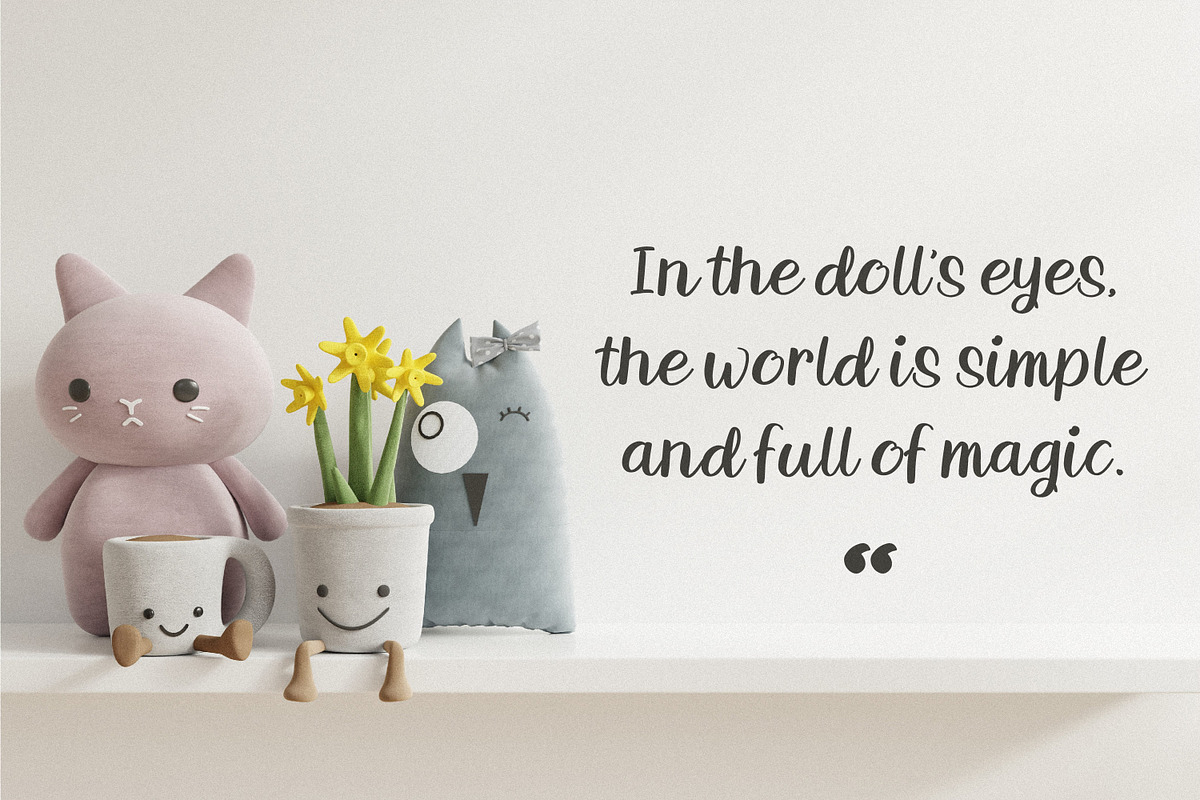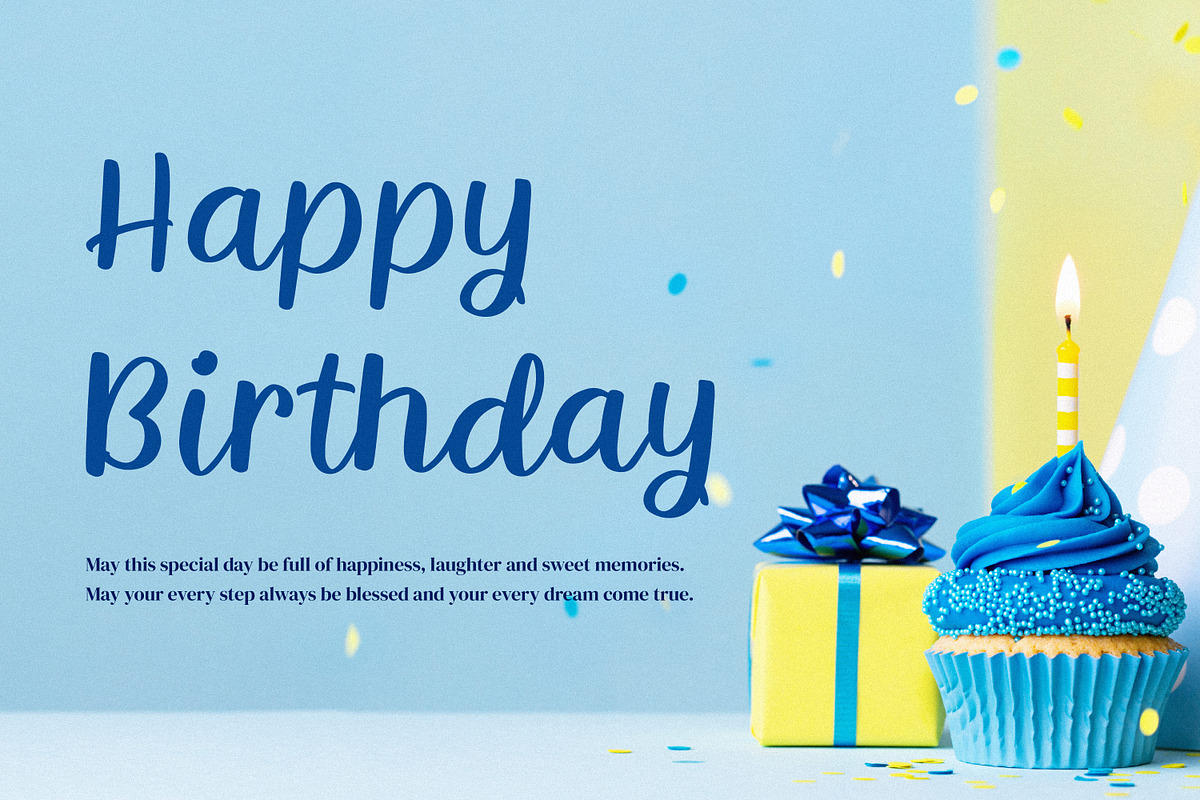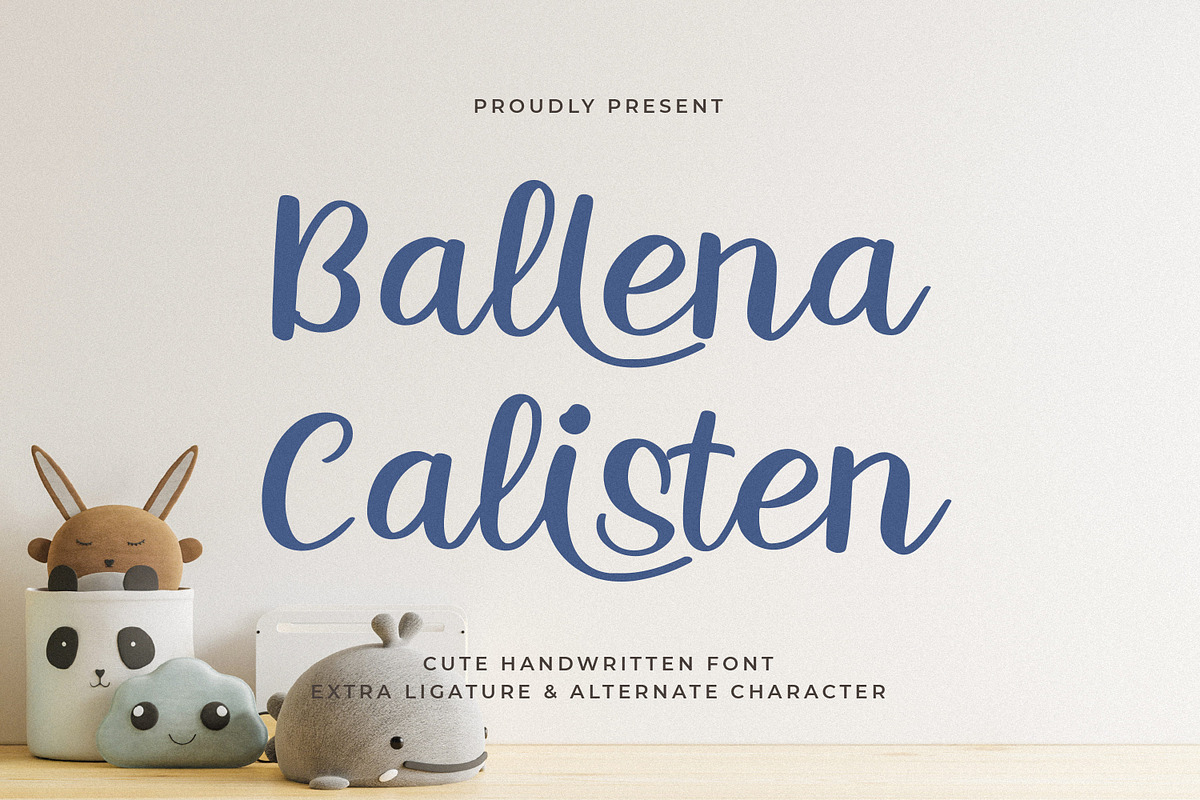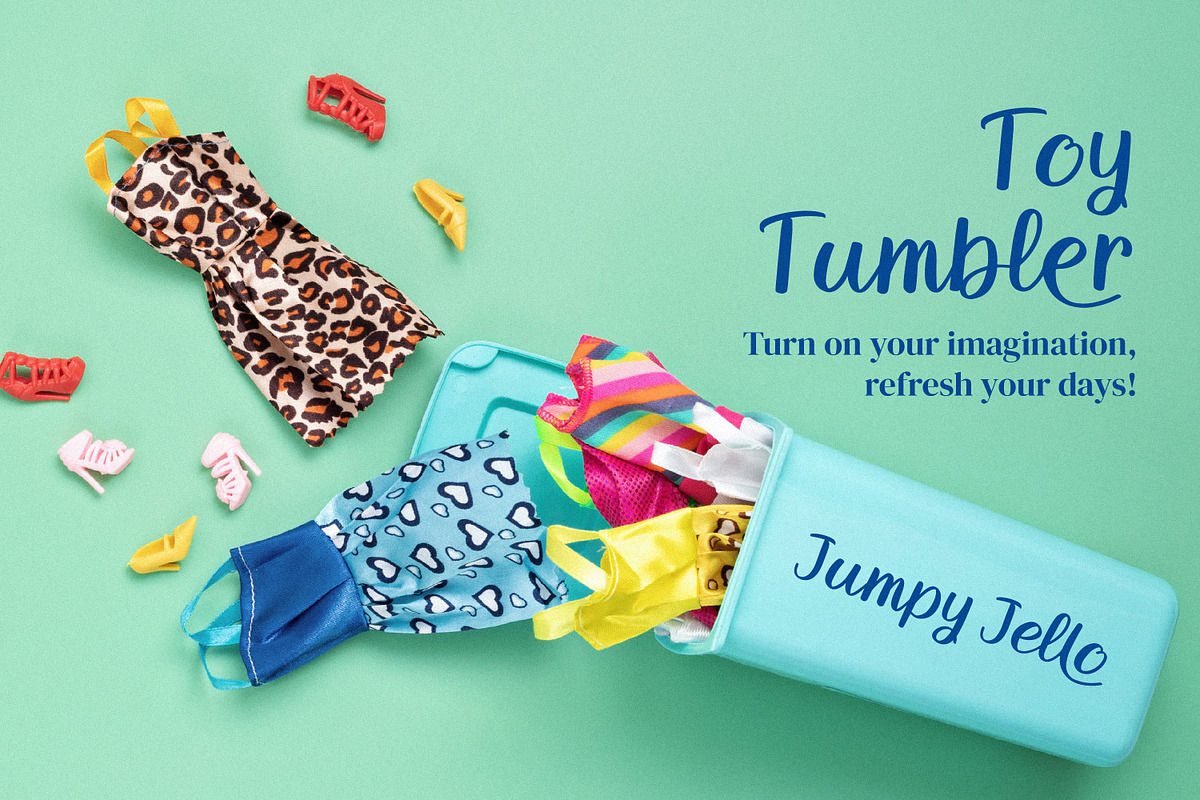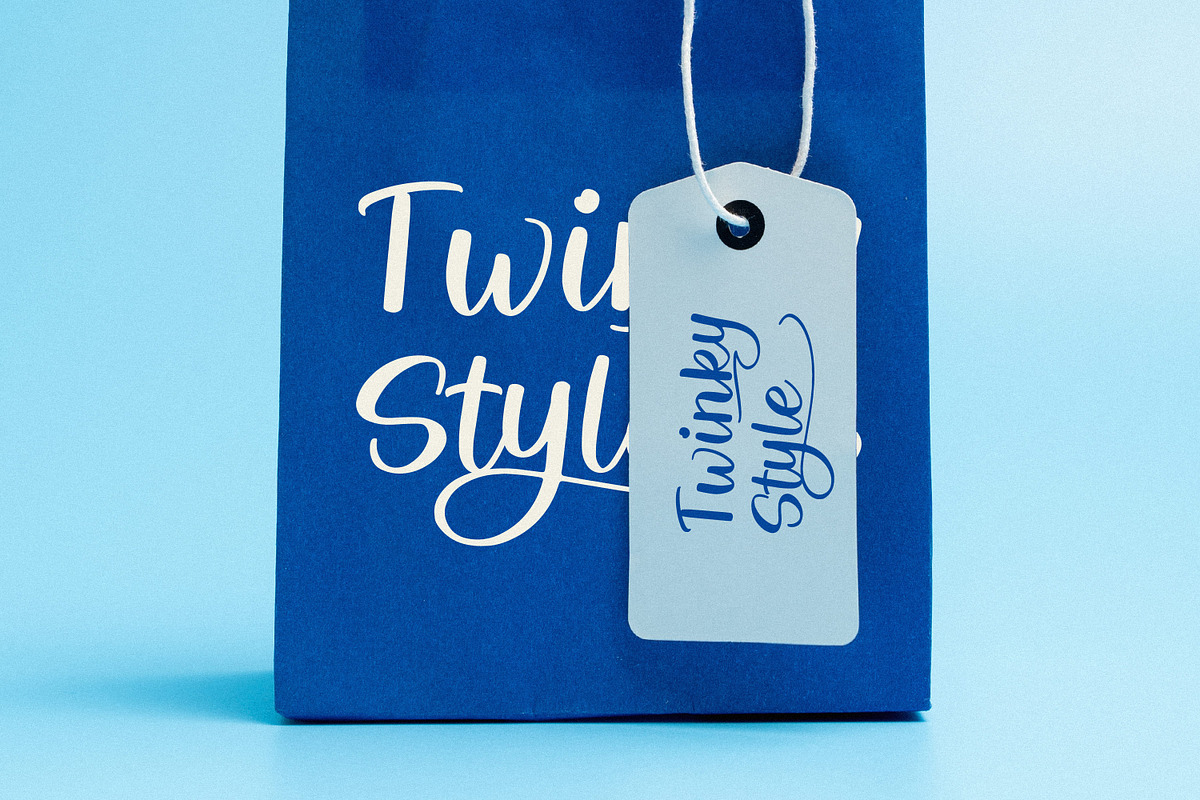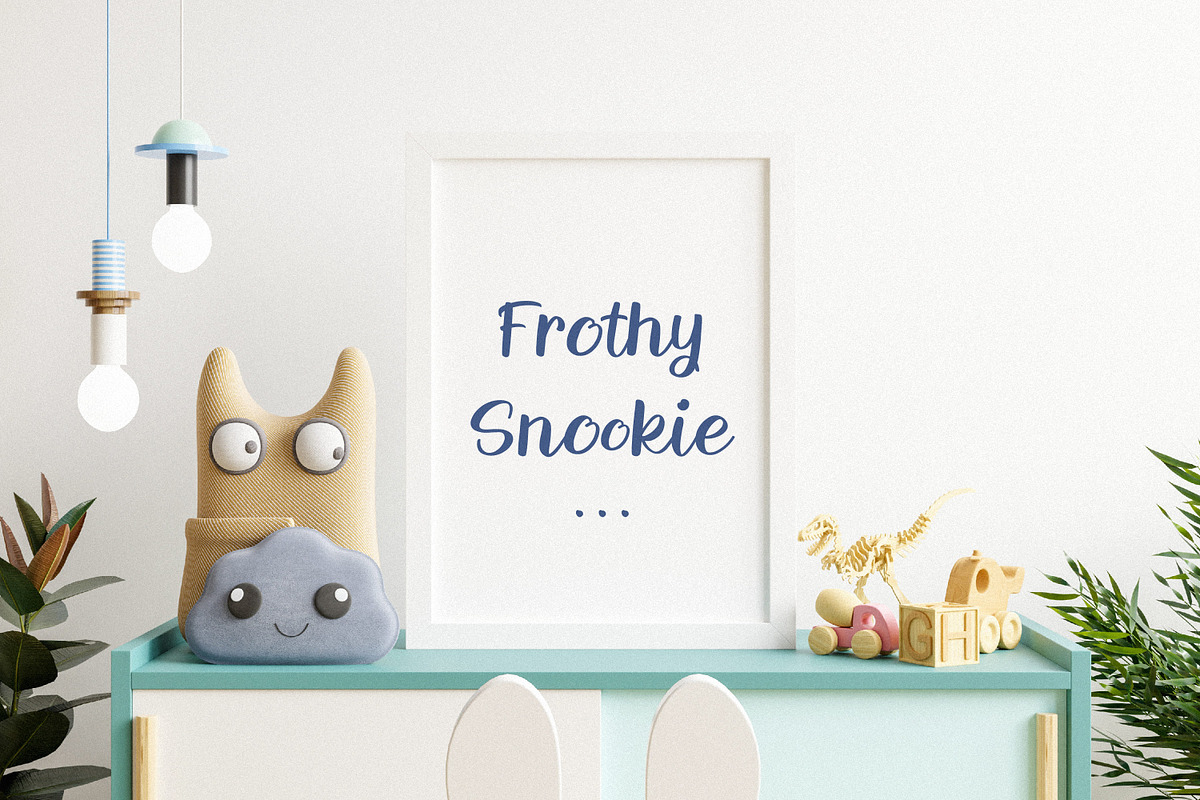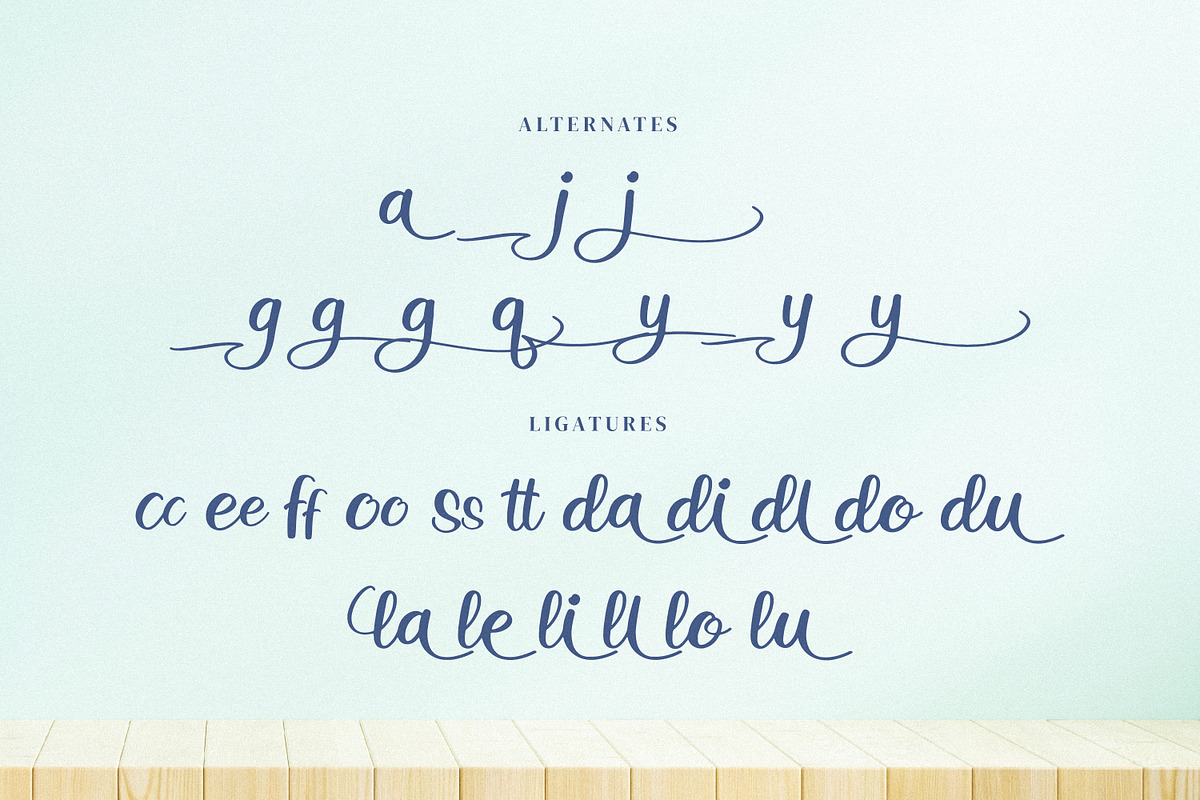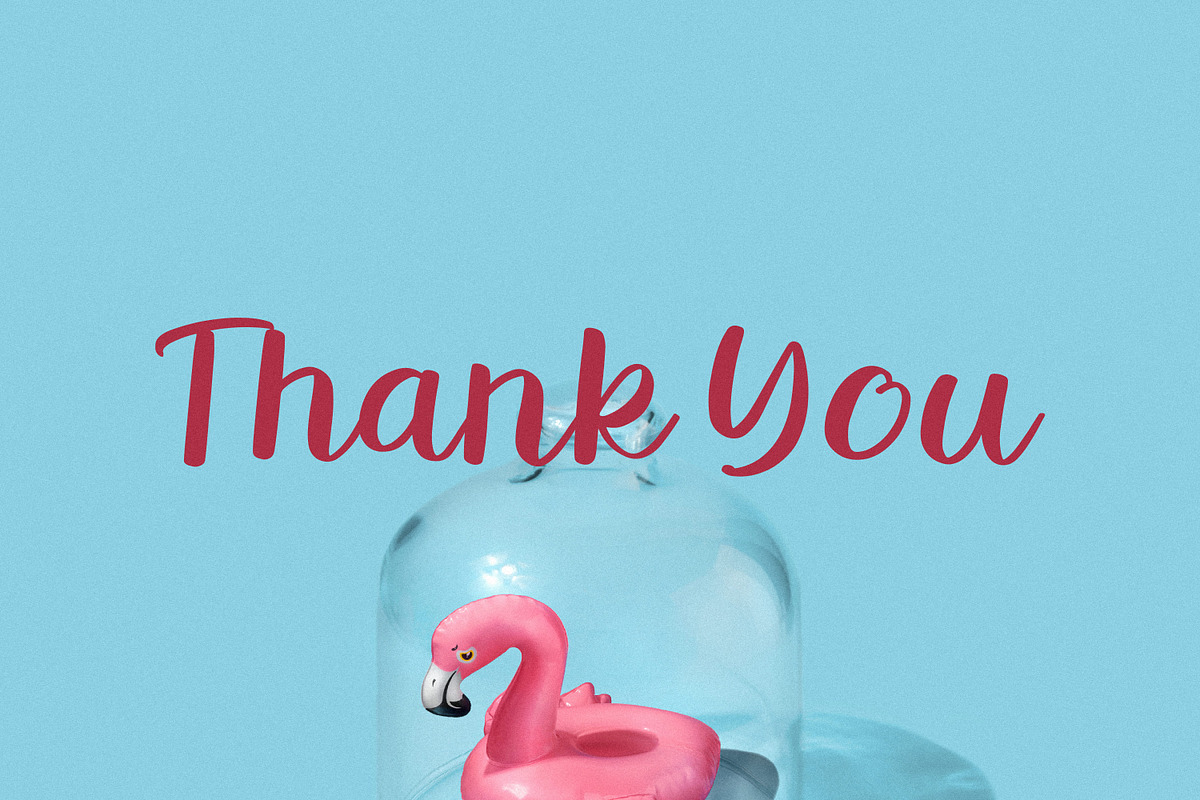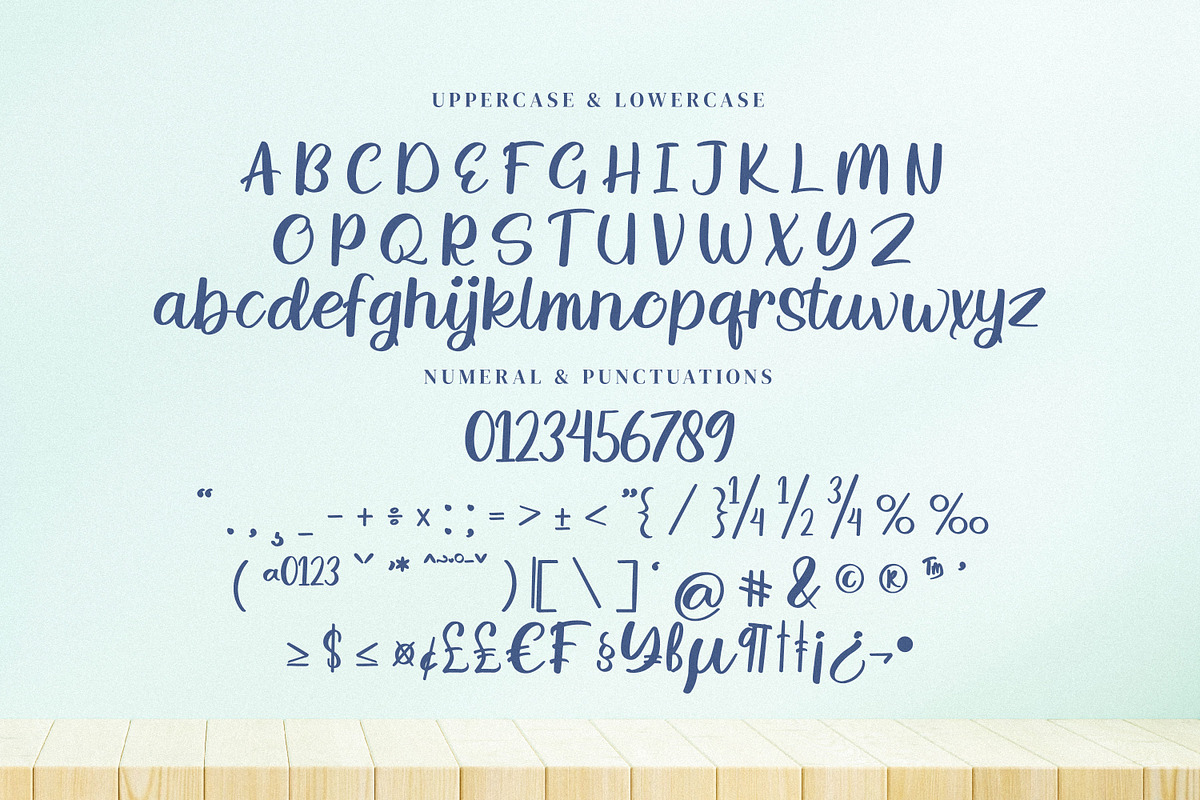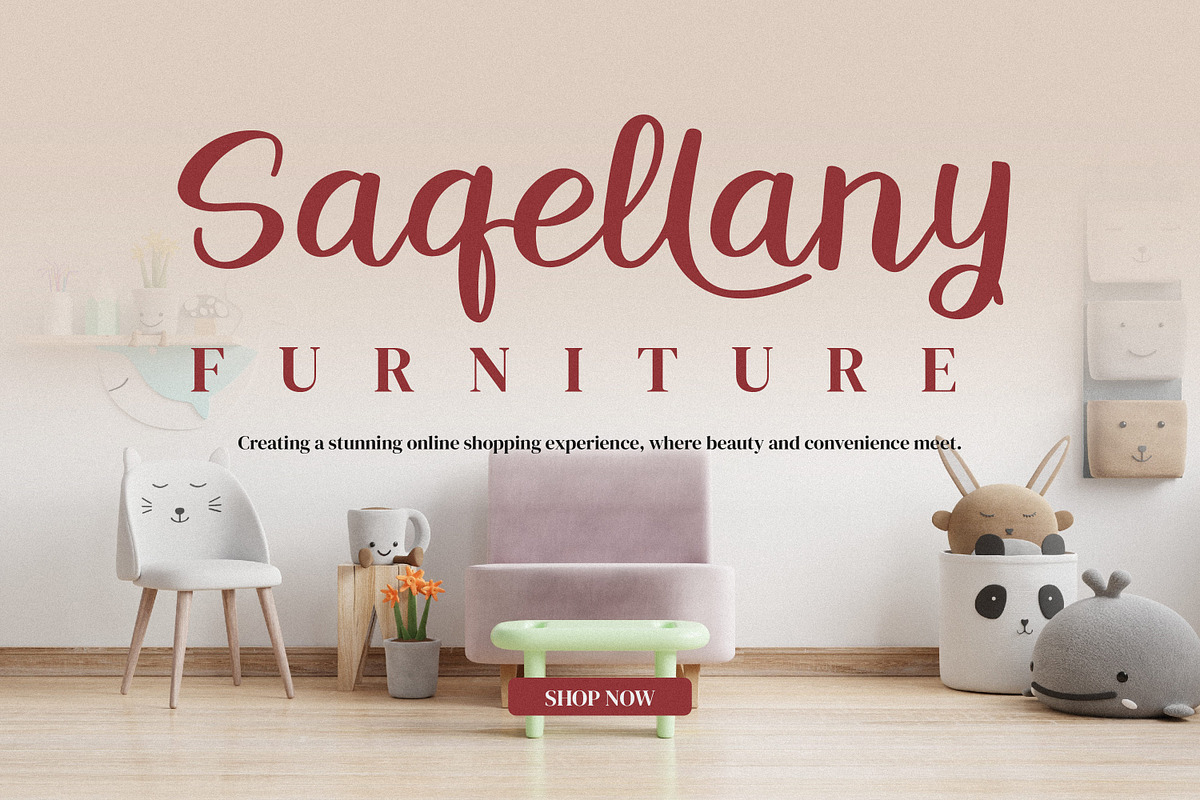
Ballena Calisten
Ballena Calisten - Cute Handwritten Font, from Goresan Studio, suitable for any projects such as: logos, branding projects, homeware designs, product packaging, mugs, quotes, posters, shopping bags, t-shirts, book covers, name card, invitation cards, greeting cards, label, photography, watermark, special events, and all your other lovely projects that need a beautiful script taste.
- Alternate, Ligature and Swash
- Fonts include multilingual support.